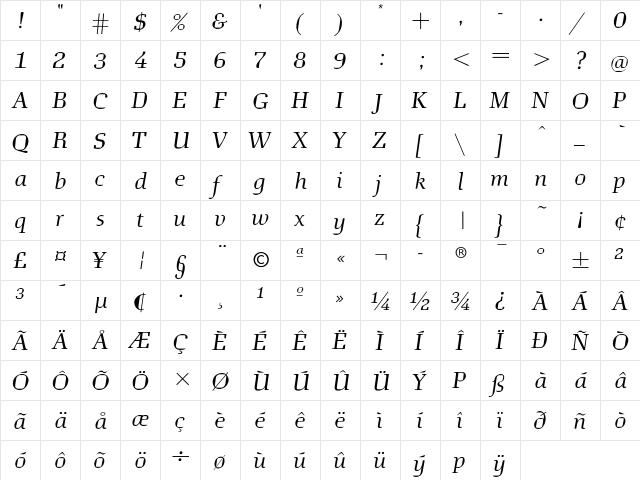
Euclides Regular
Design Context for Euclides Typeface
Euclides is a composed and adaptable typeface that performs quietly and consistently across a wide range of design contexts.
Pro Tip: Pair Euclides with a font of contrasting weight or personality to build a more expressive typographic hierarchy.